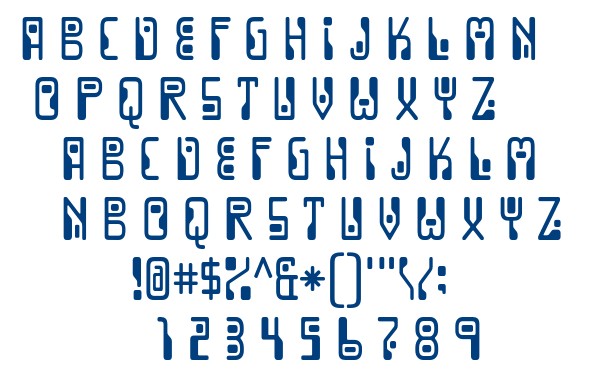
Tiny Small Medium Large Dignity of Labour font typodermic Website dignity-of-labour.otf Download 1320 downloads Freeware Category: Techno » Sci-fi Dignity of Labour is an over-the-top parody of computer oriented fonts of the late 1960’s. Character Map specimen sheet